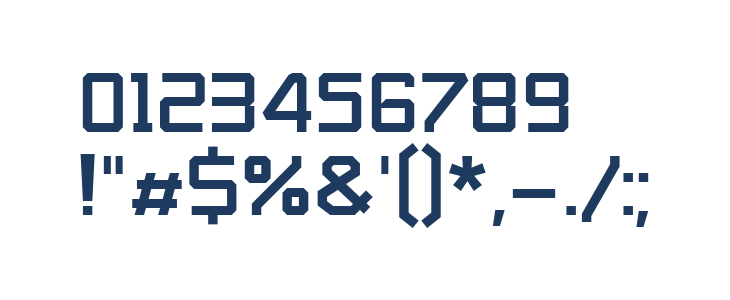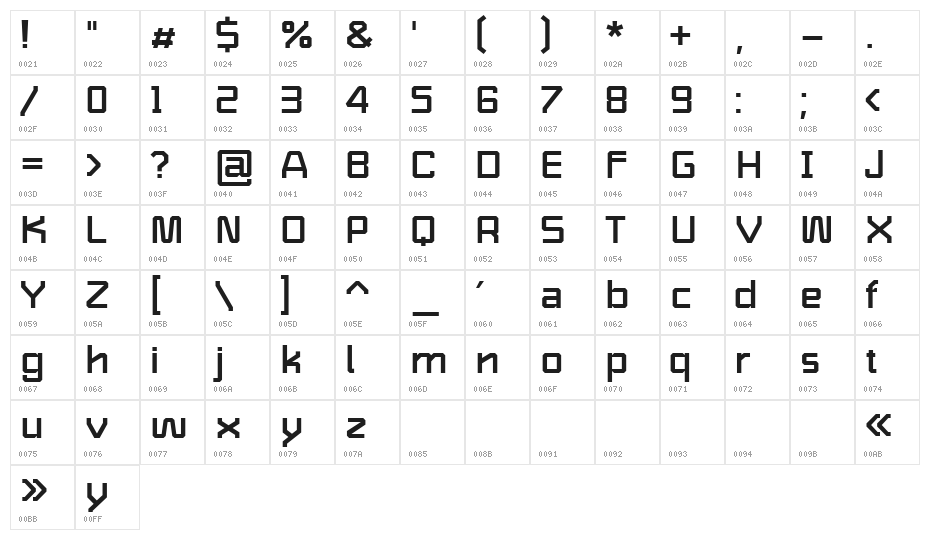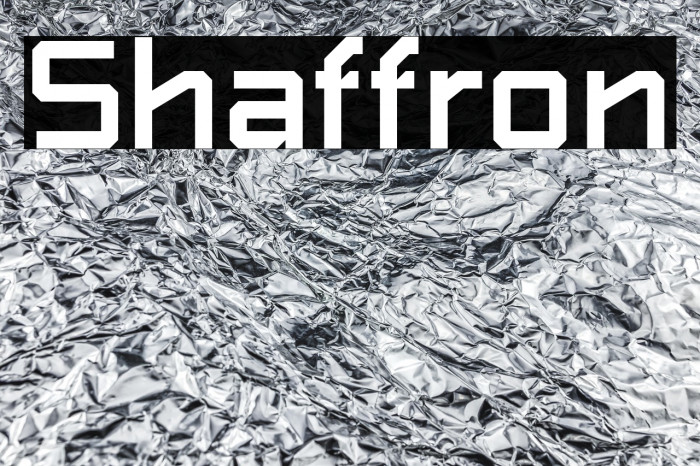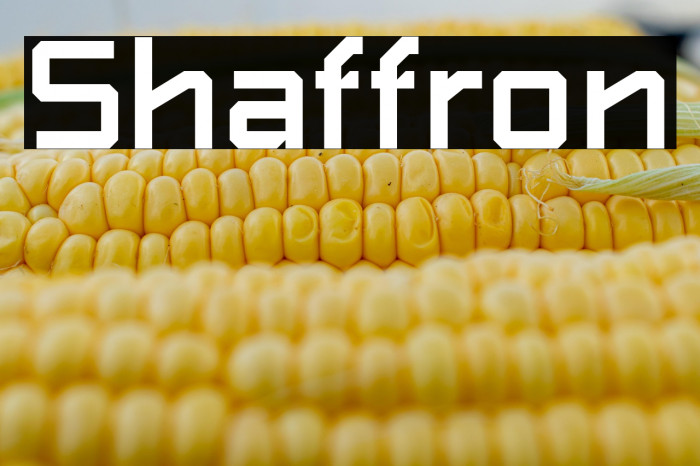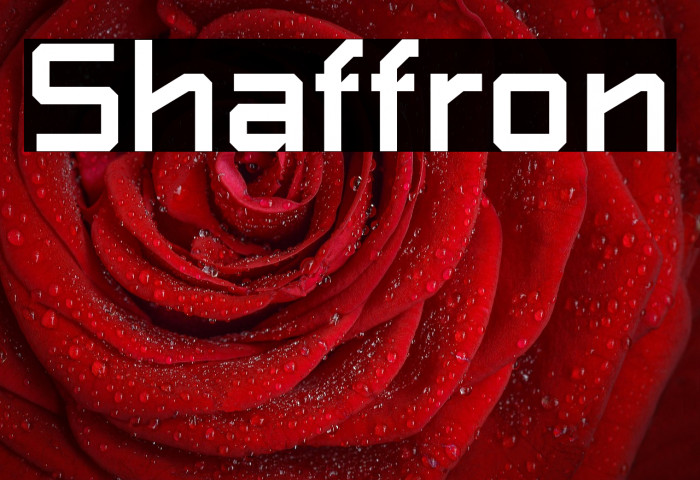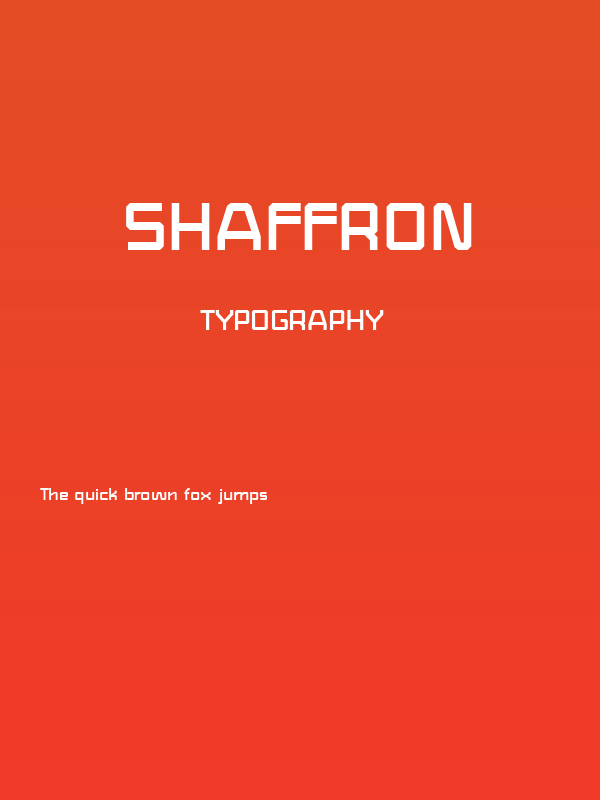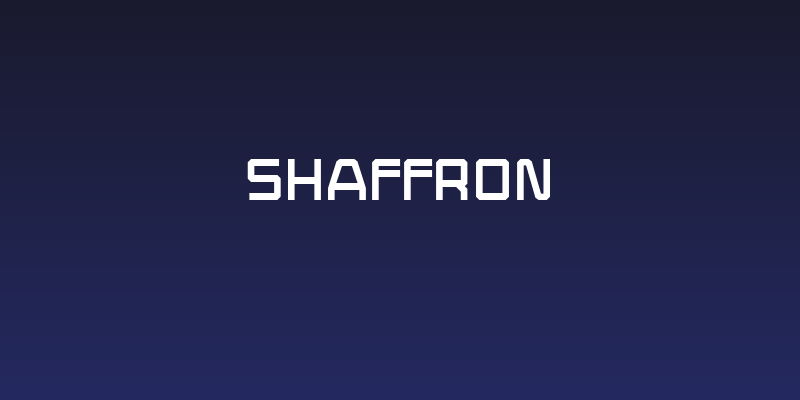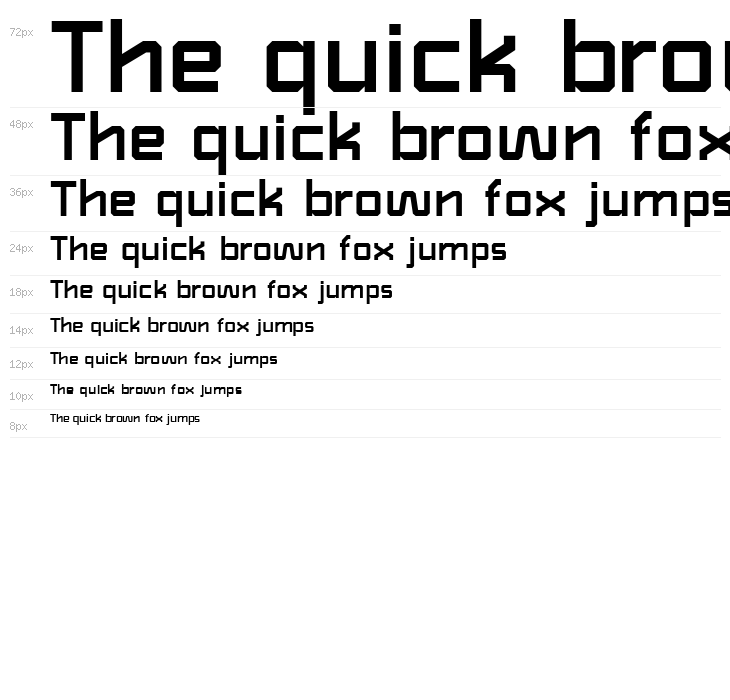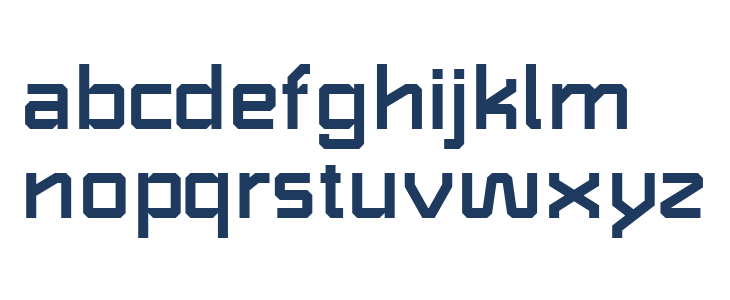
Shaffron Font
Shaffron Description
This font features a geometric and angular design, characterized by its bold and blocky appearance. The letters are constructed with straight lines and sharp angles, giving it a futuristic and technical feel. The uppercase and lowercase letters maintain a consistent style, with the lowercase being slightly more compact. Numbers and special characters follow the same design principles, ensuring uniformity across all glyphs. The font's structure is clean and precise, making it suitable for digital and print media where a modern and edgy look is desired. Its distinct and robust form makes it stand out, while still being highly legible.